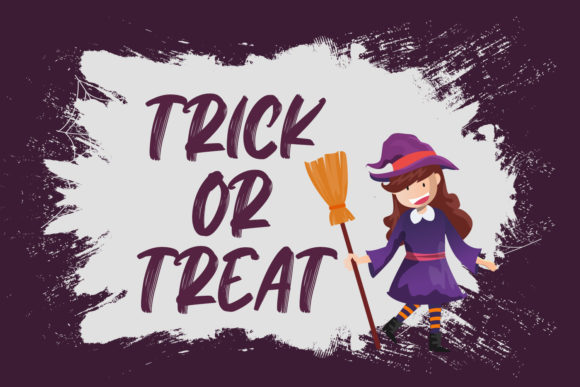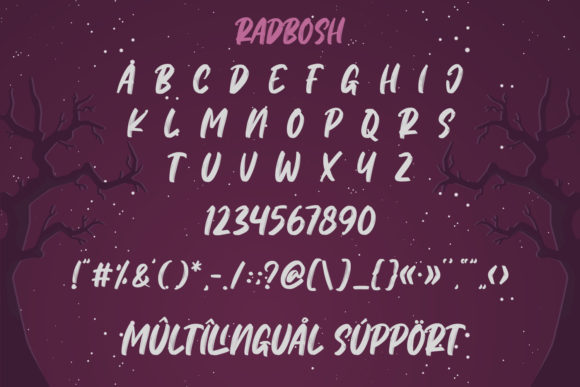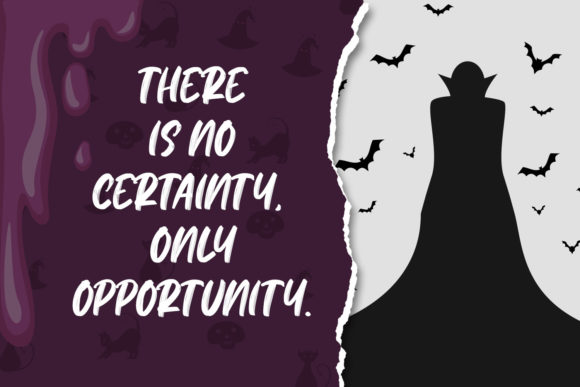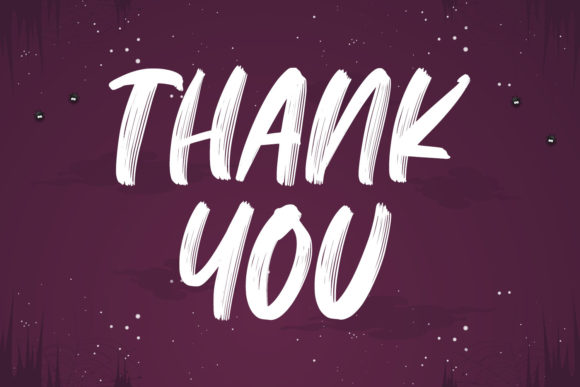
Introduction to Radbosh Font
Imagine you’re brainstorming ideas for your next design project, and you’re stuck. You want to create something that screams creativity and has that ‘wow’ factor. You search for the perfect font to give your design that extra oomph. Suddenly, you stumble upon the Radbosh Font, and your creative juices start flowing. This bold and quirky display font is sure to elevate your design game.
As a designer, you’re always on the lookout for high-quality design resources to give your creative project that extra edge. The Radbosh Font is a valuable addition to any design library, offering a unique and eye-catching aesthetic that’s perfect for a wide range of applications. From spooky Halloween themes to modern marketing materials, this font is sure to make a statement.
Key Features of Radbosh Font
- High-quality design resource ideal for creative projects, including graphics, logos, and digital art.
- Unique, handcrafted font style that adds a touch of personality to any creative project.
Honest Review: Radbosh Font
I recently came across the Radbosh Font and was excited to give it a try for my latest creative project. As a designer, I’m always on the lookout for high-quality design resources that can elevate my work, and the Radbosh Font definitely delivers.
- Modern and versatile
Radbosh Font
Radbosh Font is perfect for a variety of creative projects, including logos, social media graphics, flyers, presentations, and documents. Its unique design and transparent background make it a great resource for designers and non-designers alike.
To get the most out of Radbosh Font, experiment with different font sizes, colors, and combinations to find the perfect look for your design. You can also use Radbosh Font as a design element in its own right, rather than just as a text font.